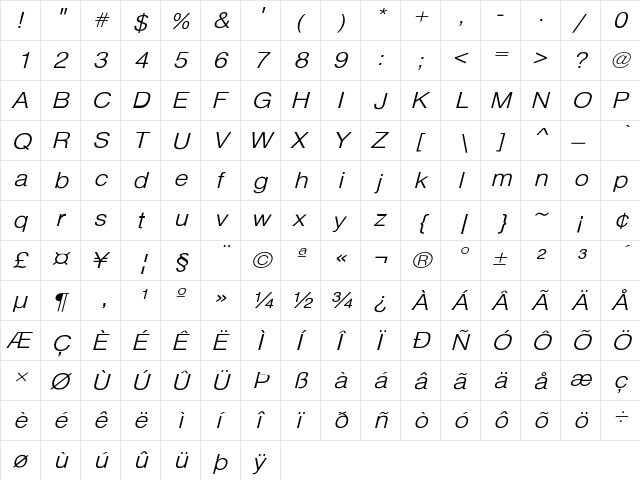
HelveticaExtObl-Light Regular
Design Context for HelveticaExtObl-Light Typeface
HelveticaExtObl-Light takes a measured approach to typography — its balanced proportions and neutral character make it a reliable workhorse for both digital and print work. The delicate stroke weight brings airiness and refinement to layouts.